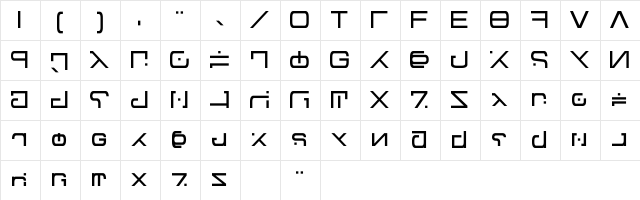
Green Martian Regular
Design Context for Green Martian Typeface
Green Martian is a composed and adaptable typeface that performs quietly and consistently across a wide range of design contexts.